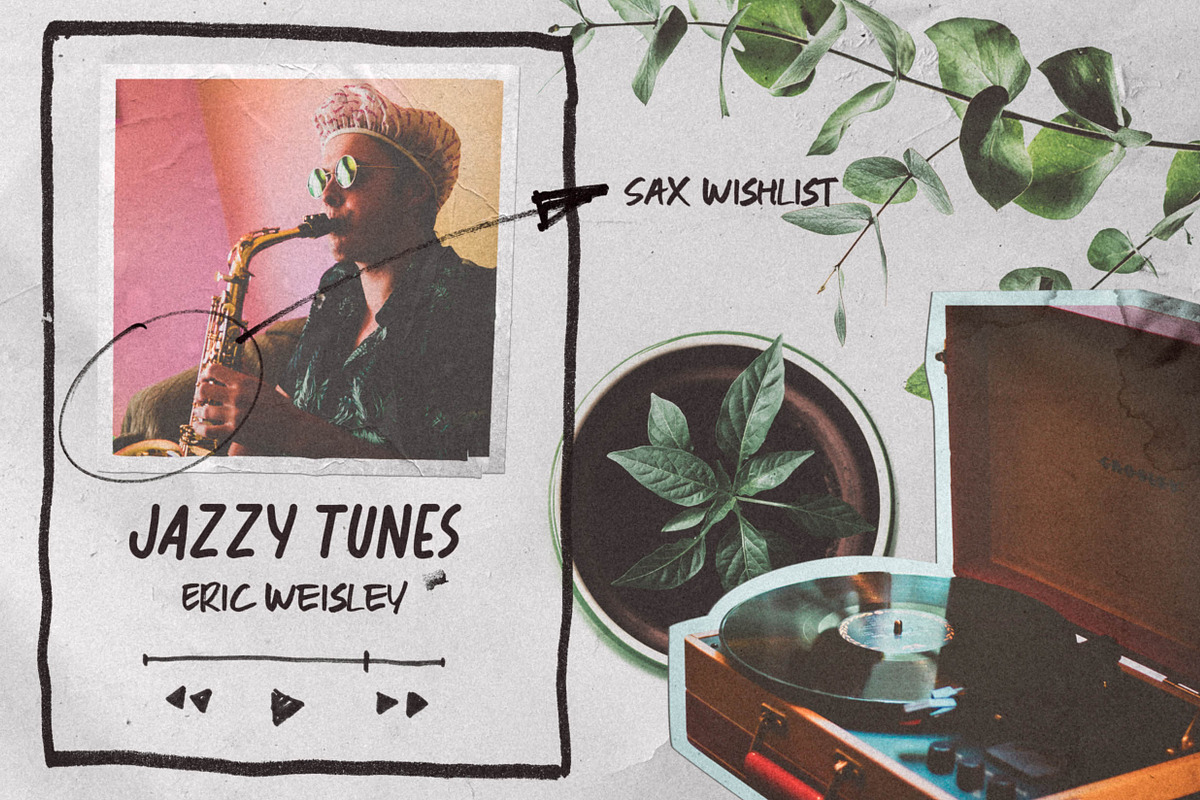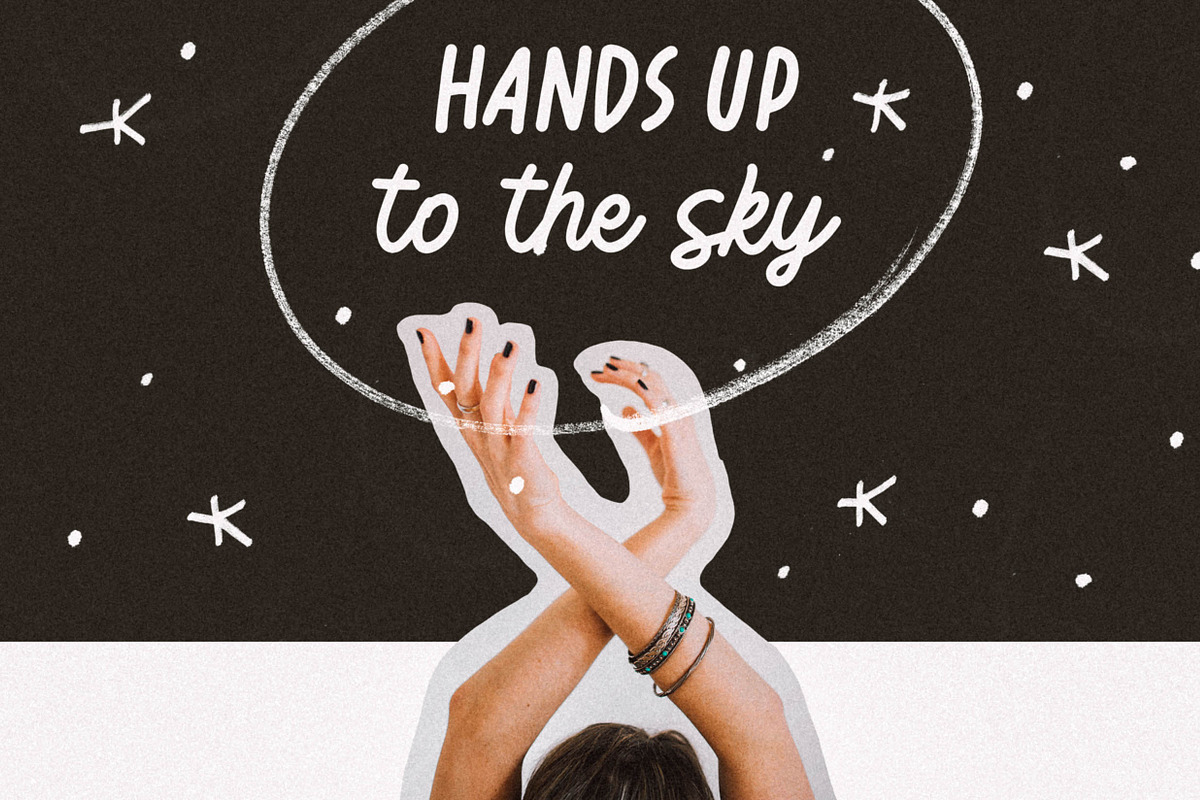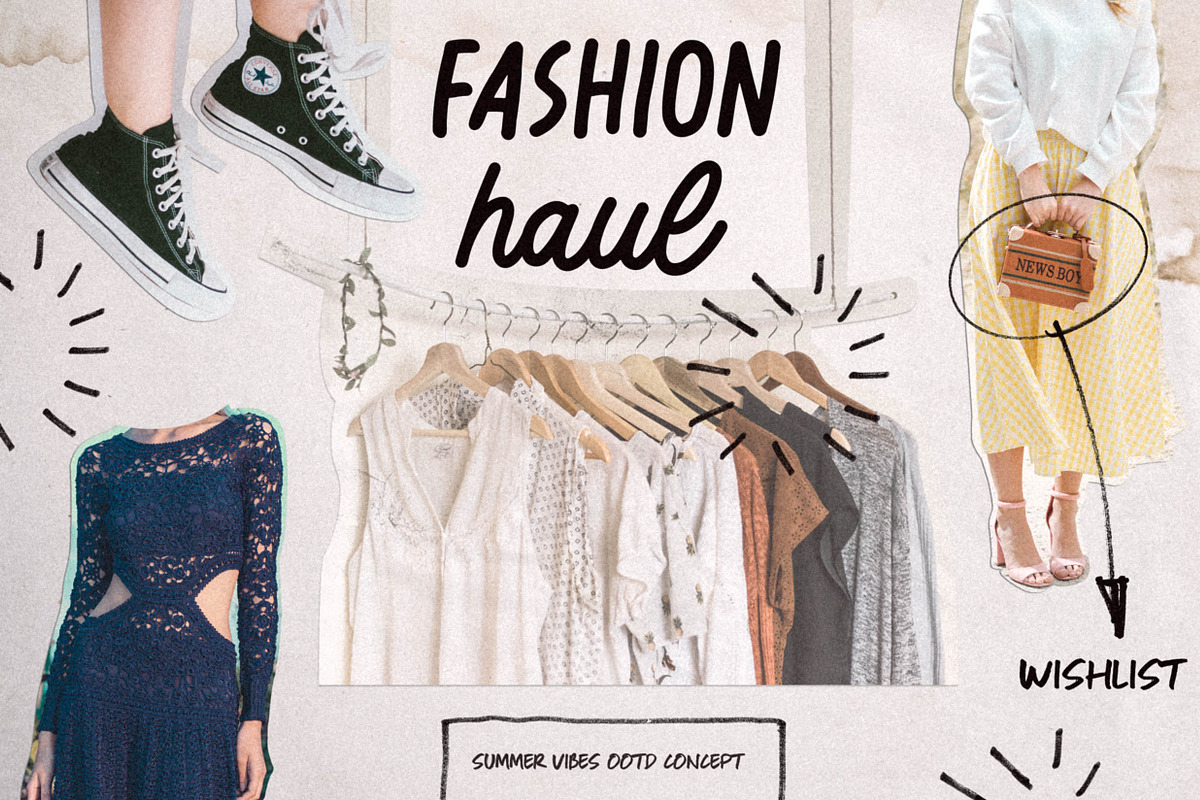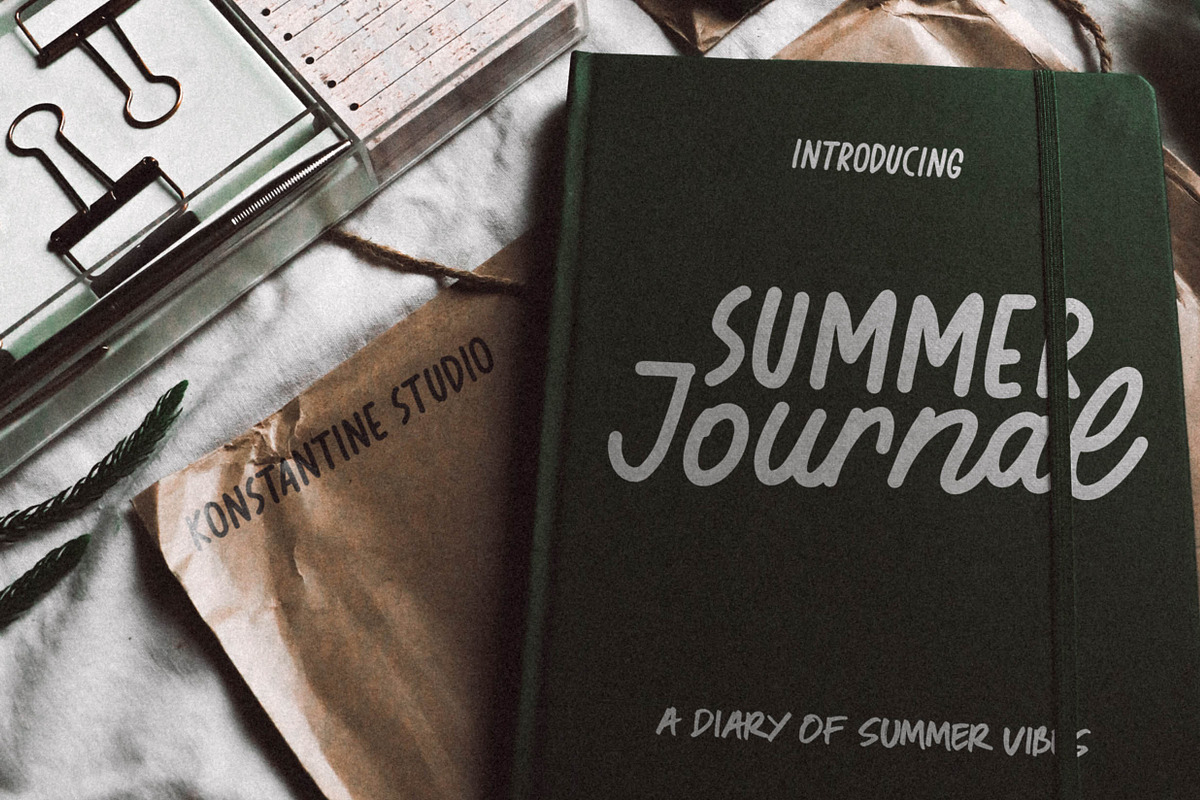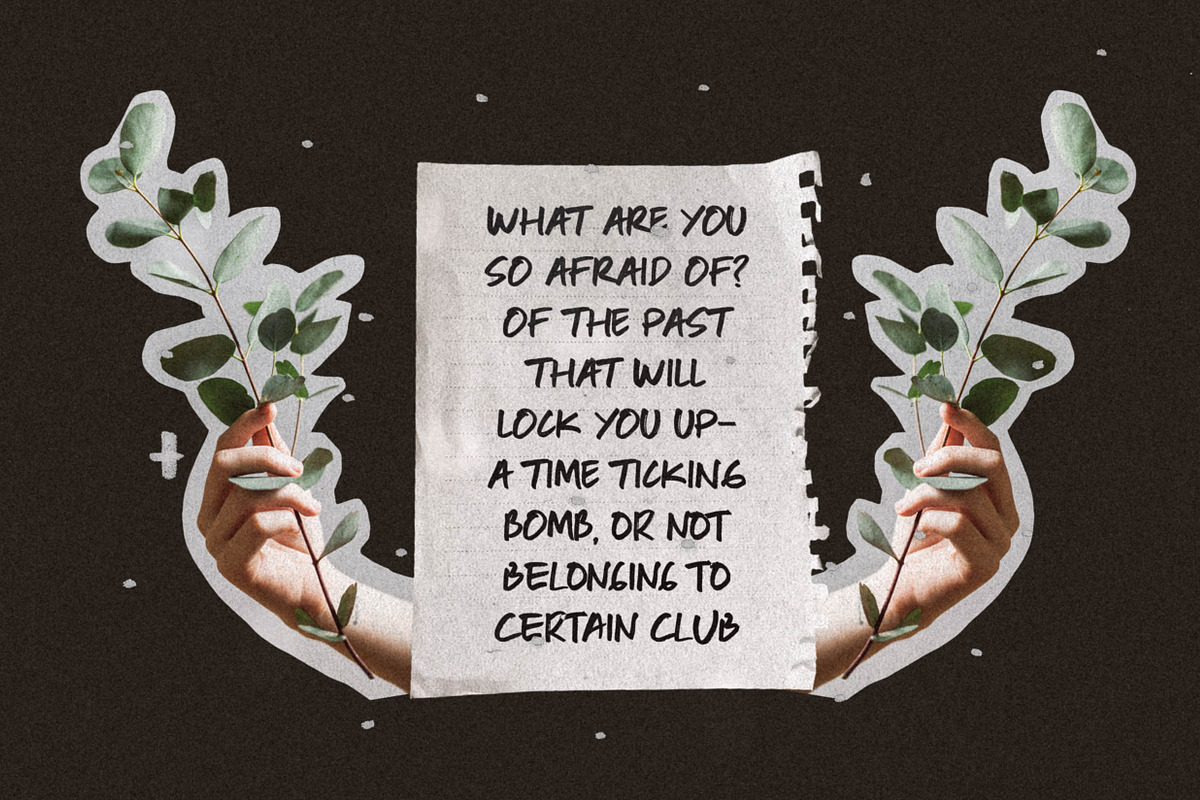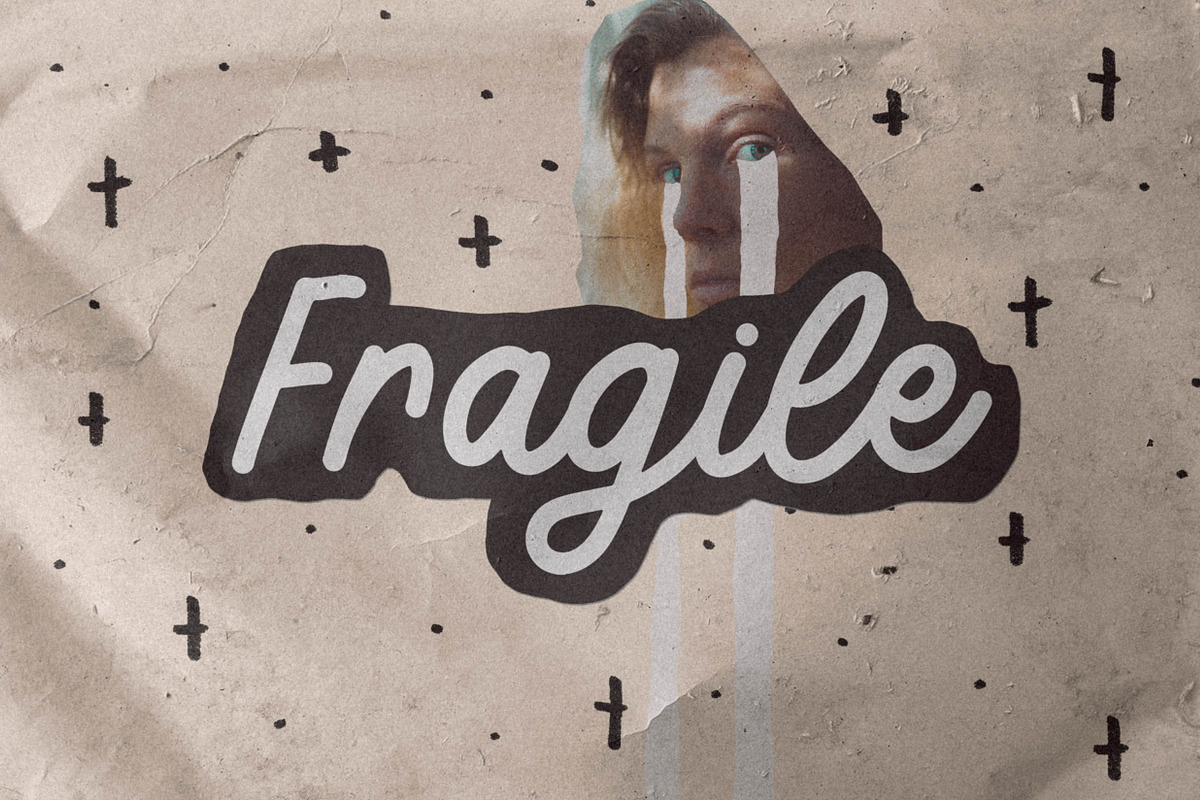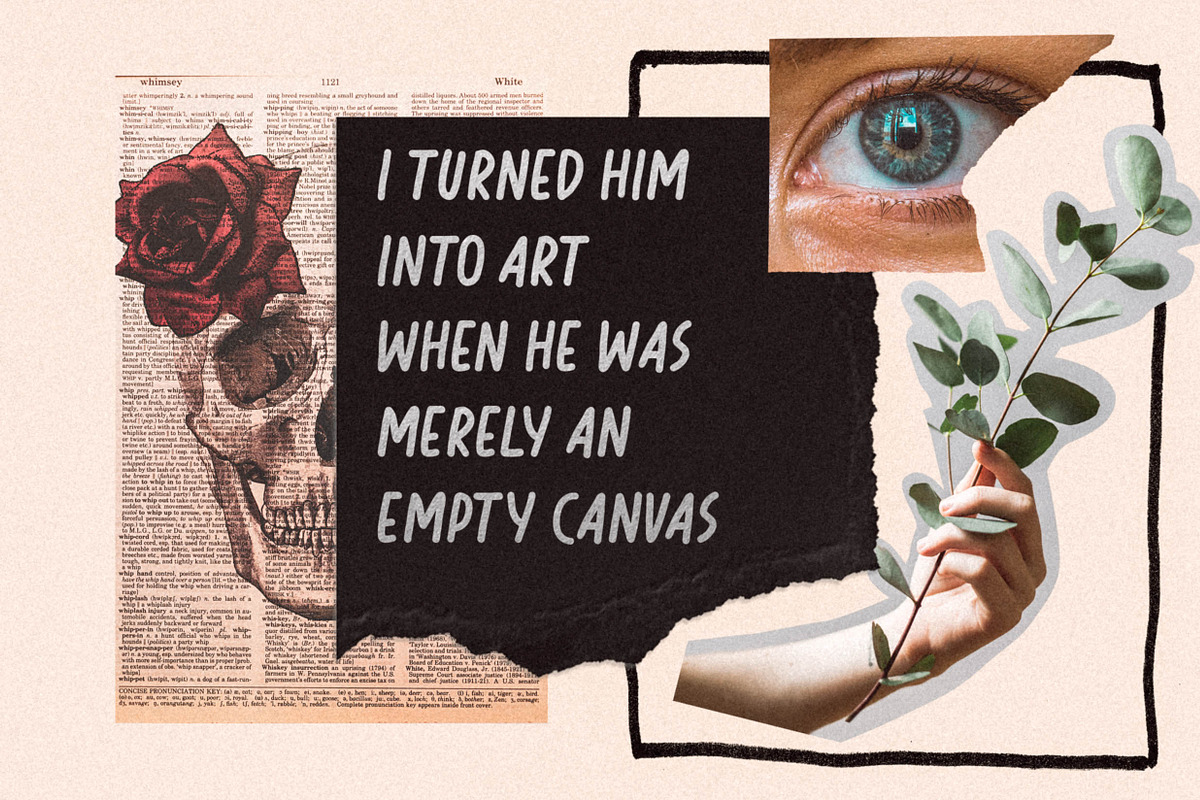
Summer Journal - Scrapbook Fonts
Have you ever thought about making a scrapbook journal digitally? now it can be real with our latest font called Summer Journal.
Inspired by the journal and scrapbook concept that happening nowadays. Some people make it as a visual diary so it could have some personal-attached emotion between you and your scrapbook journal.
Contains 3 different fonts in a pack with English language supported. So if the letters you need are included in English keyboard, you're ready and all set.
Summer Journal Regular: A handwritten monoline and bold font. Clean edges, wet-look style, perfectly fit for a header, title, display, for your whole article, and story concept.
Summer Journal Script: Same vibe with the regular one, but now it came out as a script font. Elevate some words louder by mixing it up with the regular one to give you a more natural look but deliver the message deeper using both of these fonts.
Summer Journal Handwriting: A rough and careless handwritten font as a finishing touch to the whole design using the Summer Journal pack. It's a good choice for a little note in every design you make. But still, looks good if you wanna use it as a main display font in your article. Wide possibilities.